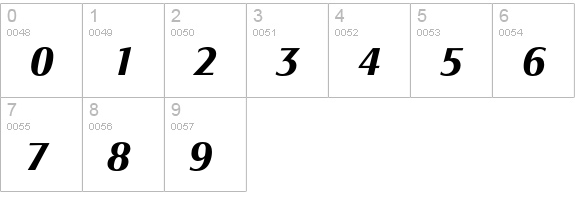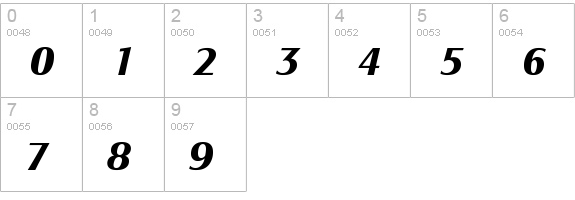
Signata Medium Italic Font Details
Signata Medium Italic is a balanced, medium-weight, italic variant in the Signata typeface family \xE2\x80\x94 well suited to sub-headlines, navigation, and balanced editorial work.
The Signata Medium Italic font is a stunning display of elegance and sophistication. Its graceful curves and slanted strokes exude a sense of refined beauty, making it the perfect choice for projects that require a touch of class. This font is a true masterpiece, carefully crafted to capture attention and leave a lasting impression. Its medium weight adds a sense of balance, allowing for effortless readability across a variety of mediums. The italicized style adds a touch of flair and uniqueness, making it stand out amongst other fonts. But what truly sets Signata Medium Italic font apart is the fact that it is freely available to download at FontsMarket.com. Yes, you read that right - this incredible font can be yours at no cost. Whether you are a professional designer, a student, or simply someone with a passion for typography, you can enjoy the beauty and versatility of Signata Medium Italic font without breaking the bank. So why wait? Take advantage of this incredible opportunity and elevate your designs to new heights. Download Signata Medium Italic font today and let its timeless beauty transform your projects into works of art.